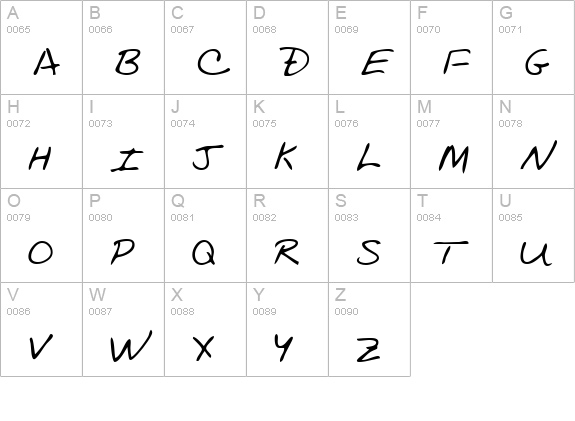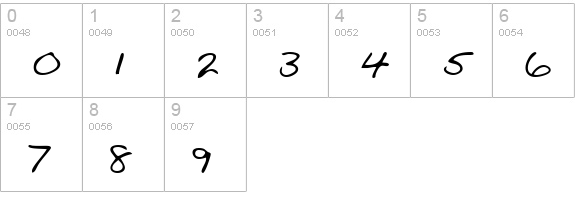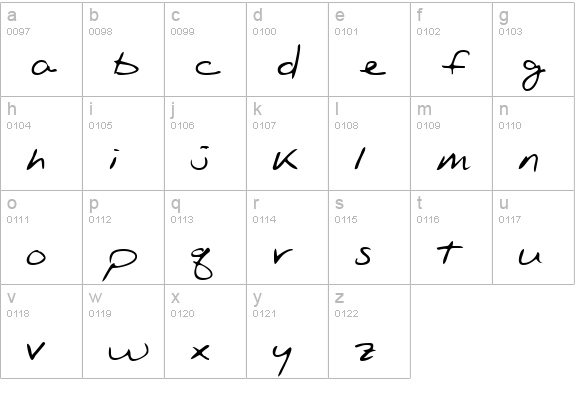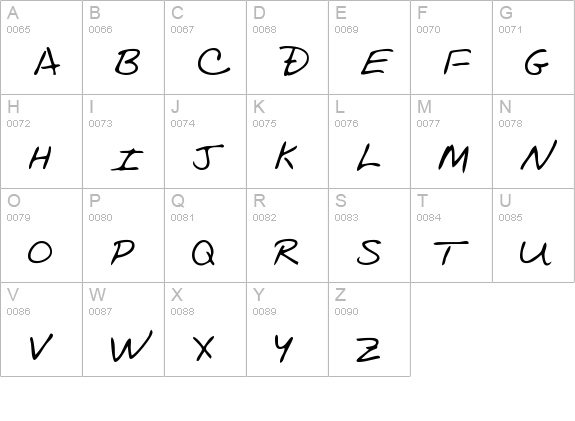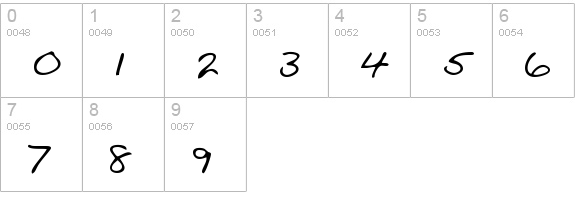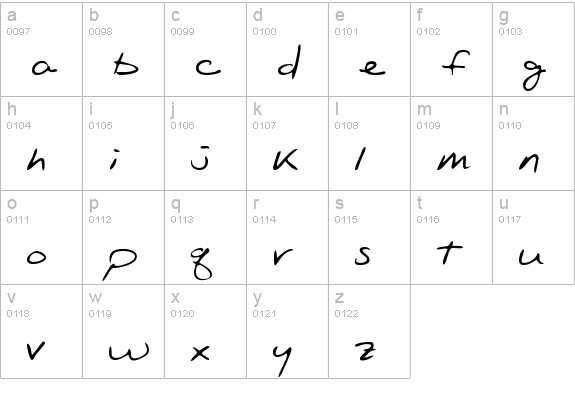
EvansHand Regular Font Details
EvansHand Regular is the standard, neutral variant in the EvansHand typeface family \xE2\x80\x94 well suited to general body text, paragraphs, and standard typographic work.
EvansHand Regular font is a charming and versatile typeface perfect for adding a personal touch to your designs. With its elegant and flowing handwritten style, this font exudes warmth and creativity. Whether you're designing invitations, greeting cards, or logos, EvansHand Regular font will bring a unique and authentic feel to your projects. The best part? EvansHand Regular font is available for free download at FontsMarket.com. This means you can easily access this beautiful font and use it in your designs without any cost. Don't miss out on the opportunity to enhance your projects with the timeless appeal of EvansHand Regular font. Download it today and let your creativity shine!